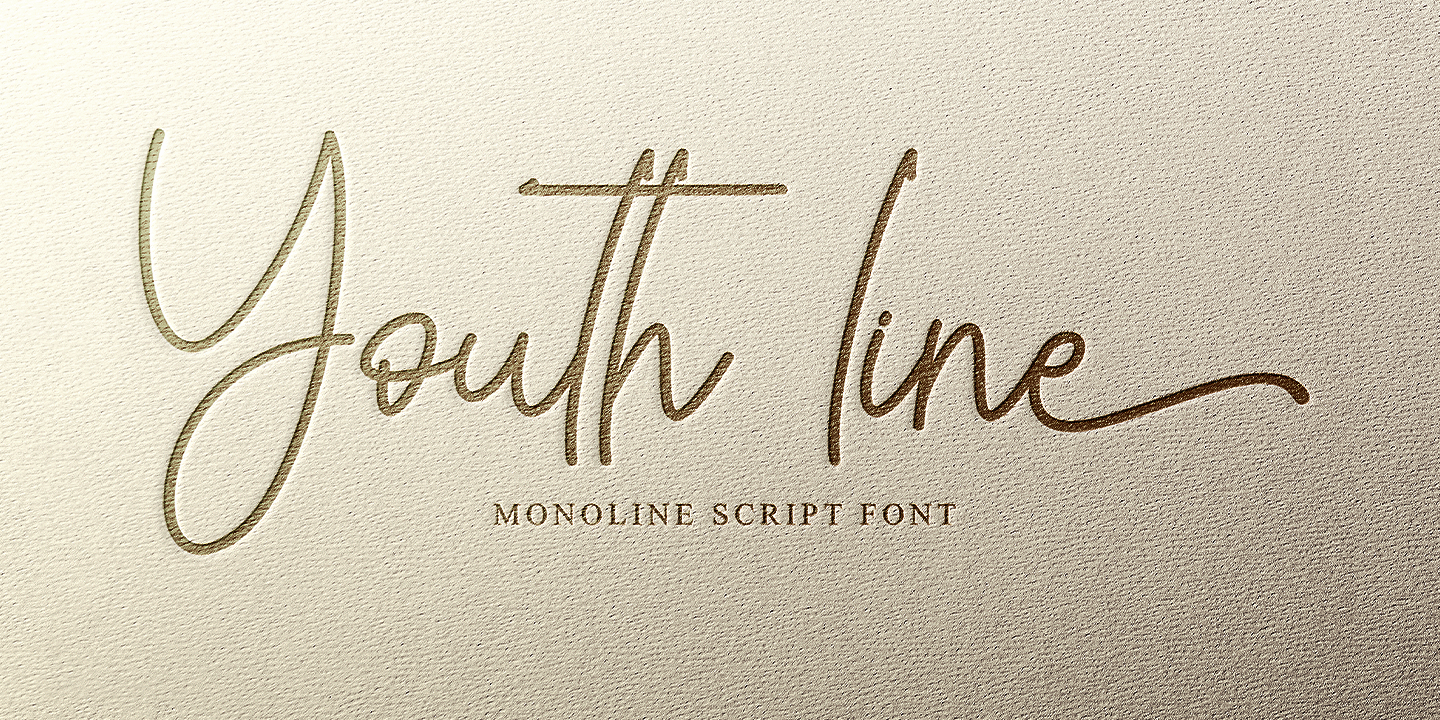
The Youth Line Font is ideal for teen fashion brands, youth sports organizations, college campus materials, young adult marketing campaigns, social media graphics, summer camp promotions, youth empowerment programs, and energetic lifestyle brands. This vibrant typeface excels in applications where youthful energy and generational authenticity need to be emphasized, making it perfect for brands that want to connect with younger audiences through fresh, dynamic visual communication that speaks their language.
What makes Youth Line Font exciting is its authentic generational voice and energetic line work that captures the spirit of youth culture and contemporary expression. The font's clean linear design and youthful character create an atmosphere of optimism and forward-thinking energy, making it ideal for brands that want to communicate innovation, possibility, and the unlimited potential of young generations. Its fresh aesthetic ensures that every application feels current, relatable, and genuinely connected to youth culture.
The Youth Line Font family typically includes thin, regular, and bold weights, often featuring contemporary alternates, youth-inspired symbols, and modern line elements that enhance its generational appeal. Many versions include social media icons, lifestyle ornaments, and specialized characters that provide designers with comprehensive tools for creating authentic youth-focused design projects with genuine generational energy and contemporary visual relevance.
For designers working on projects that require youth authenticity and generational credibility, Youth Line Font Free Download provides exceptional contemporary appeal. Its ability to instantly communicate youthful energy and modern relevance makes it an invaluable choice for youth brands, educational institutions, and any project requiring typography that embodies the dynamic spirit of young generations, the optimism of youth culture, and the fresh perspective of contemporary lifestyle expression.